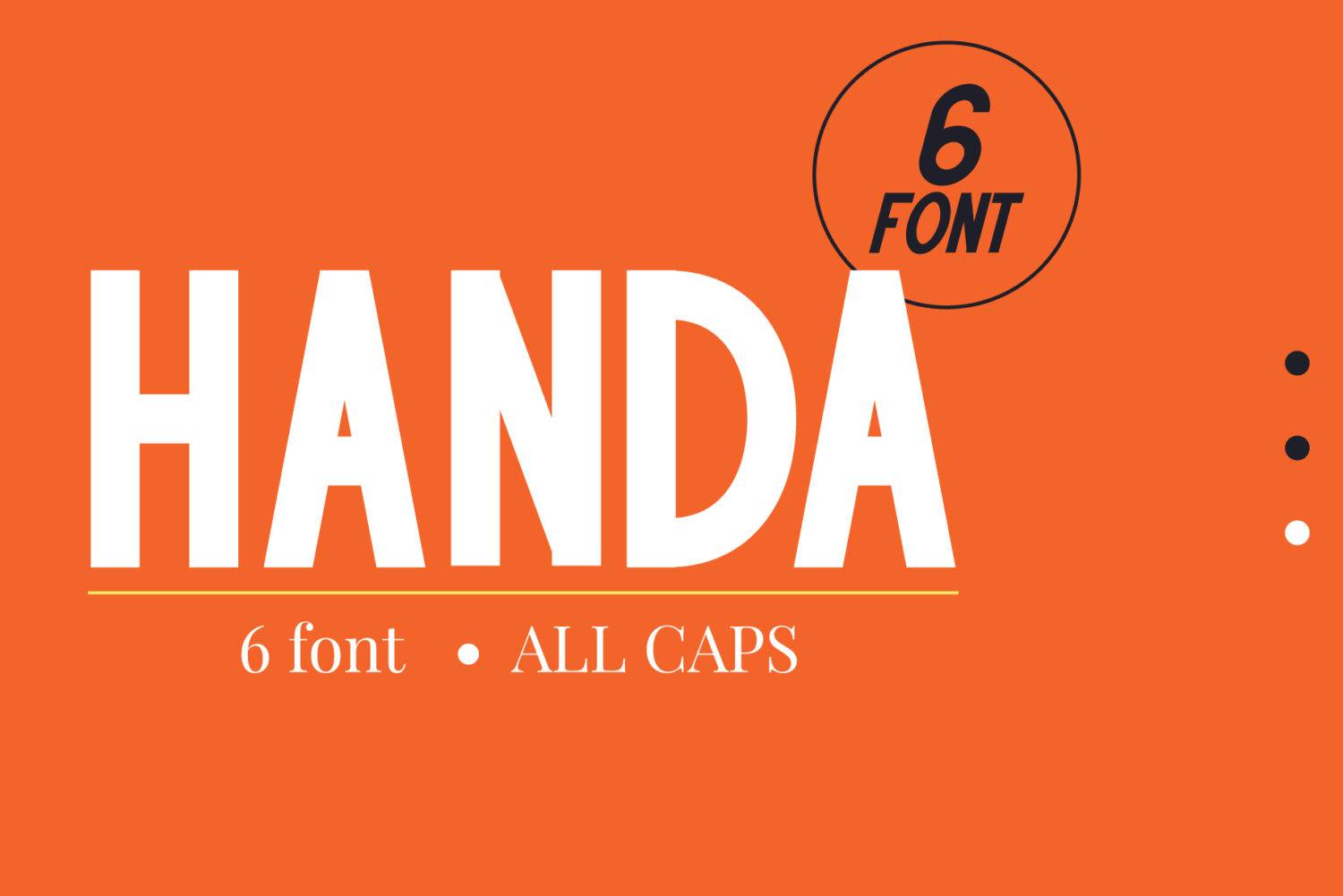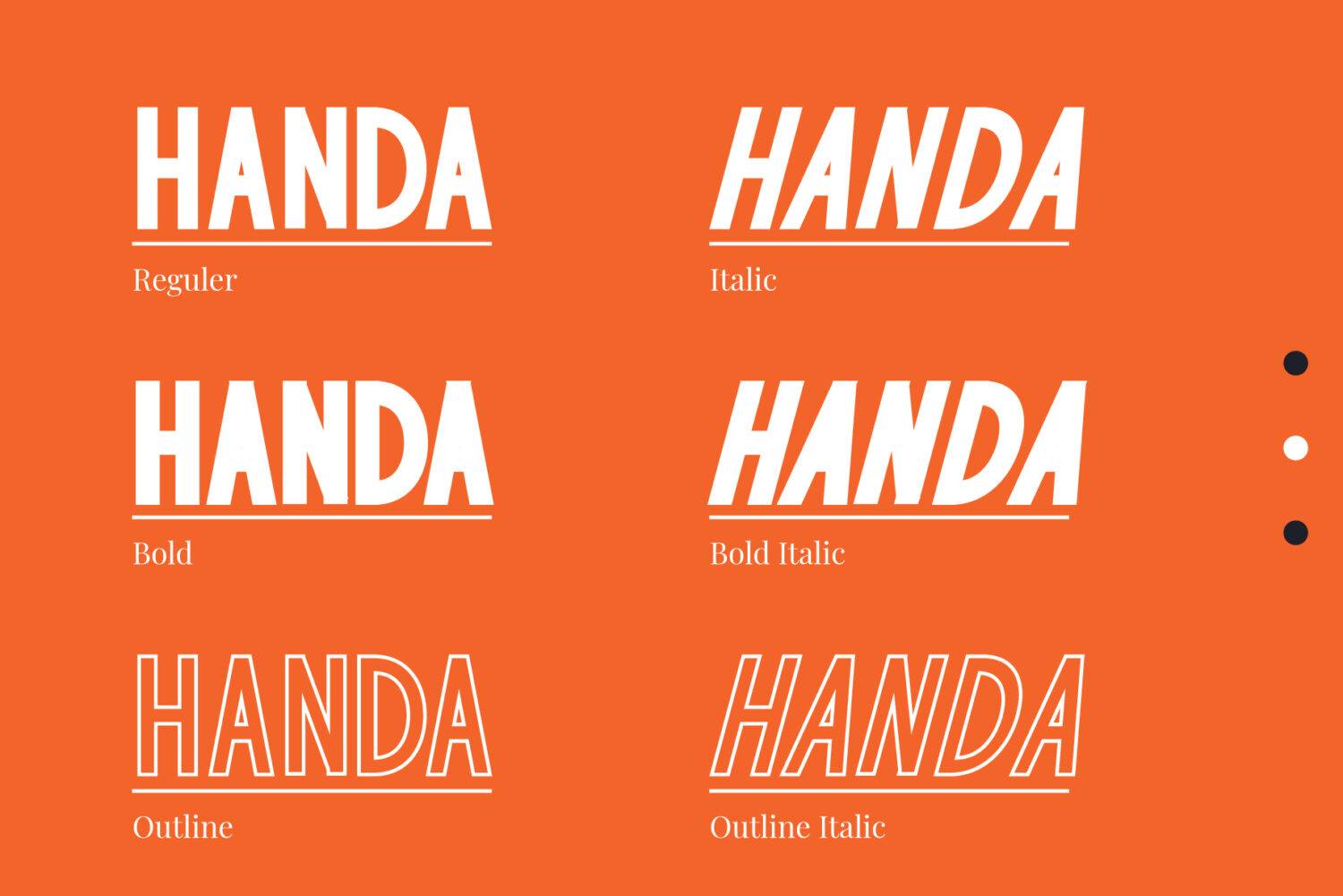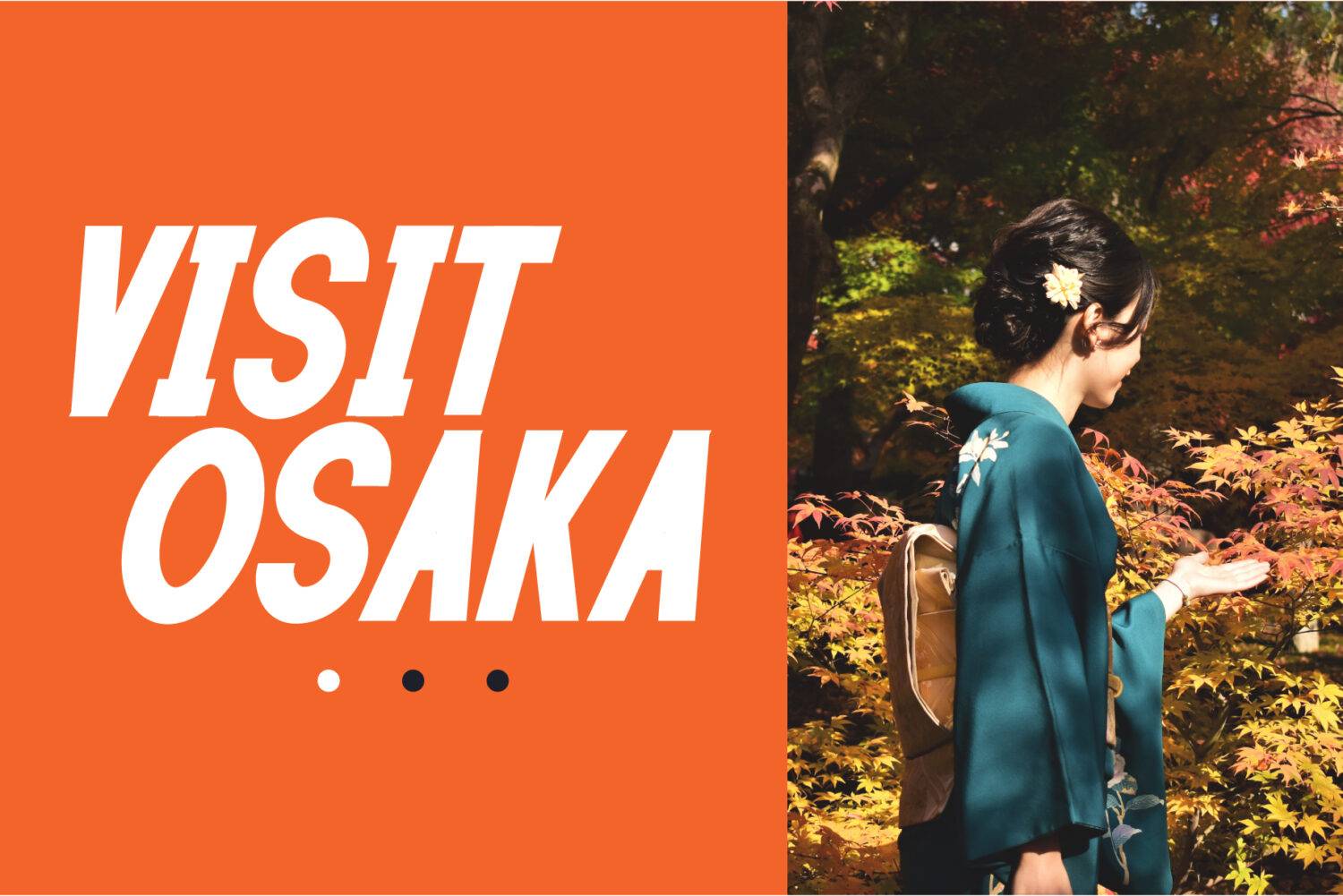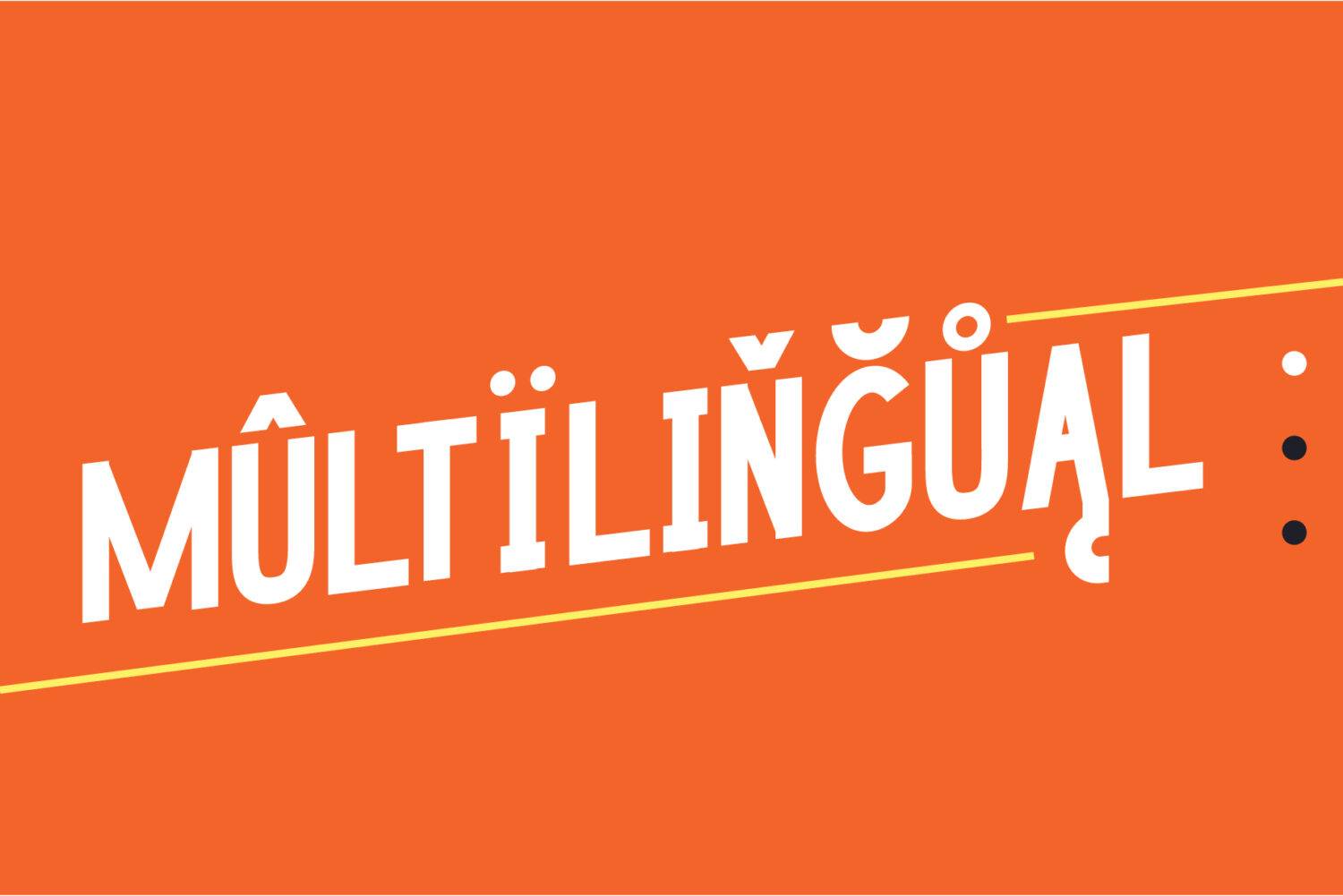
Handa is a bold, condensed sans serif font with a strong, modern presence. Its clean, geometric letterforms and uniform stroke weight give it a striking, contemporary look, ideal for headlines and branding that require high impact and readability. This font works well in editorial design, posters, and logos where a confident, professional tone is desired.
Handa Font
About Handa Font
| Font family | Handa Font |
| Designer | Attype Studio |